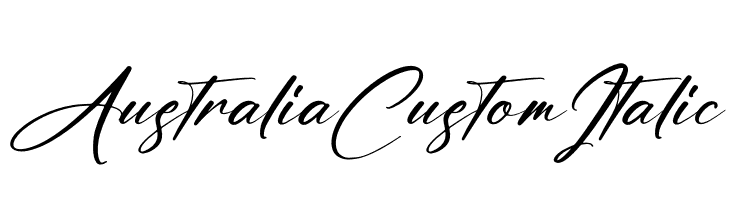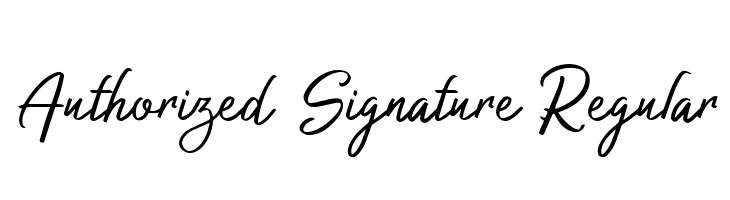
A bold, pixelated font with a retro digital aesthetic.
An elegant, flowing script font with a classic calligraphic style.
A bold, playful font with chunky, dynamic characters.
A bold, handwritten font with a playful and energetic style.
A whimsical and bold font with playful curves and decorative elements.
A decorative font with intricate geometric patterns and bold strokes.
A bold, handwritten font with a playful and informal style.
A bold, italicized handwritten font with dynamic and energetic strokes.
A bold, italicized handwritten font with a dynamic and expressive style.
A decorative and abstract typeface with bold strokes and unique shapes.
A whimsical and elegant script font with flowing, cursive characters.
A bold, high-contrast serif font with a modern and elegant style.
A playful, bold handwritten font with smooth curves and a casual style.
A bold, graffiti-inspired font with a dripping paint effect.
A dripping, horror-themed font with a bold, eerie style.
A playful, handwritten font with bold, rounded strokes and a casual vibe.
A bold, elegant serif font with high contrast and pronounced curves.
A bold, brush-style font with dynamic, hand-drawn strokes.
A dynamic, cursive script font with flowing, expressive strokes.
A bold, edgy font with angular cuts and a gothic influence.
An elegant, flowing script font with graceful curves and loops.
A bold, geometric typeface with a modern, blocky design.
A bold, dynamic script font with interconnected characters and high contrast.
A lively and expressive script font with a handwritten feel.
A playful, handwritten cursive font with thin, elongated strokes.
A fluid, handwritten-style font with elegant, connected characters.
A bold, expressive script font with flowing cursive letterforms.
A bold, decorative font with thick strokes and unique curves.